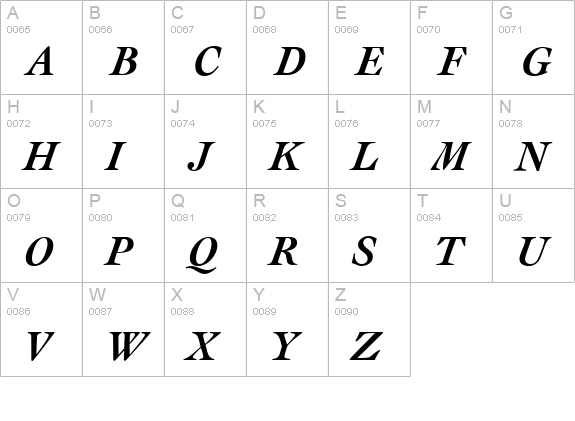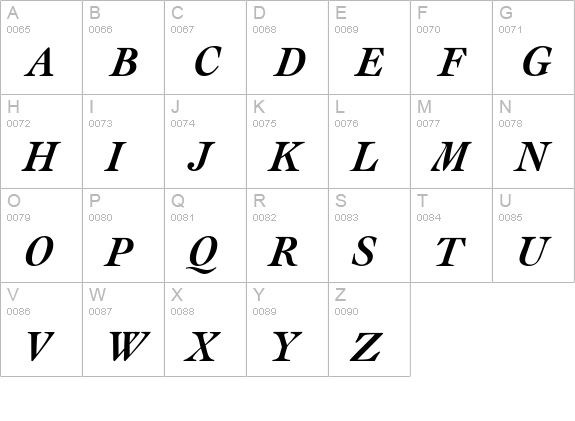
Cockney-BoldItalic Font Details
Introducing Cockney-BoldItalic font, a playful and energetic typeface that brings a modern twist to traditional typography. This unique font combines the boldness of Cockney style with a touch of italic flair, creating a dynamic and eye-catching look perfect for a variety of design projects. Cockney-BoldItalic font is perfect for adding a touch of personality to your designs, whether you're working on posters, logos, branding materials, or social media graphics. Its distinctive style makes it stand out from the crowd and adds a fun and lively element to any project. And the best part? Cockney-BoldItalic font is completely free to download at FontsMarket.com. So go ahead and add this versatile and expressive font to your collection today and let your creativity shine!